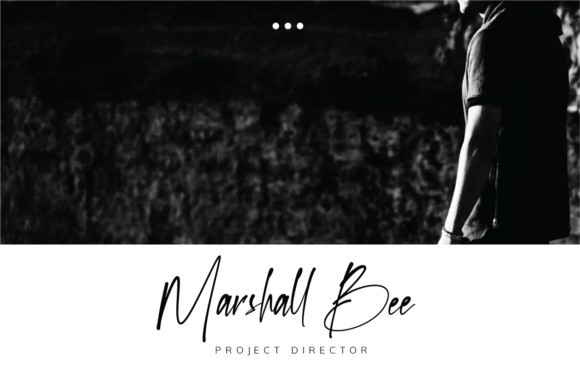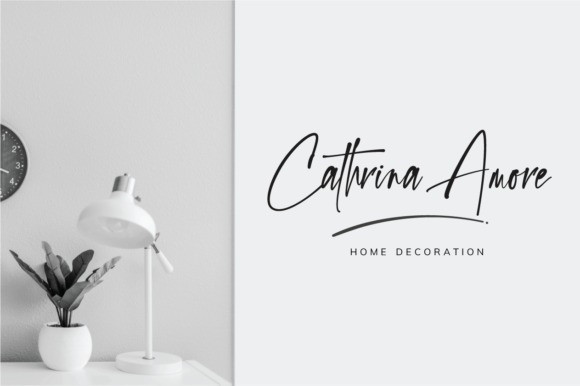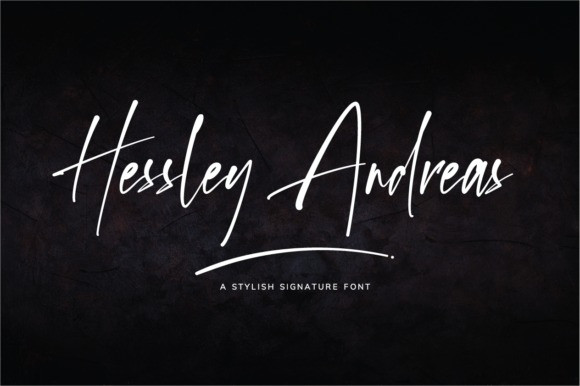
Tribista Script Font
Tribista is a beautiful, flowing and relaxed handwritten font. Brushed and timeless, this font is ideal for each of your casual designs.